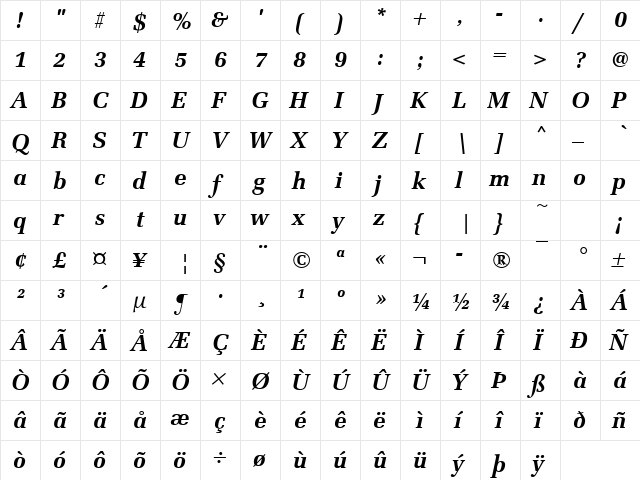
URWLatinoT Bold Italic Font Preview
URWLatinoT Bold Italic
Design Context for URWLatinoT Typeface
URWLatinoT is a composed and adaptable typeface that performs quietly and consistently across a wide range of design contexts. The slanted form adds forward momentum and visual energy. The heavy weight commands attention and anchors typographic hierarchies.
Pro Tip: Try URWLatinoT for annotation and caption copy alongside an upright companion — the contrast in angle creates a dynamic but ordered typographic system.